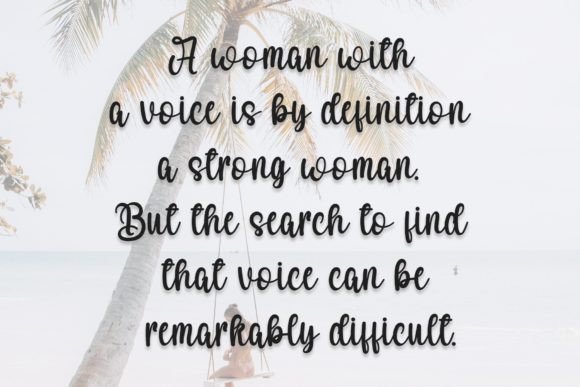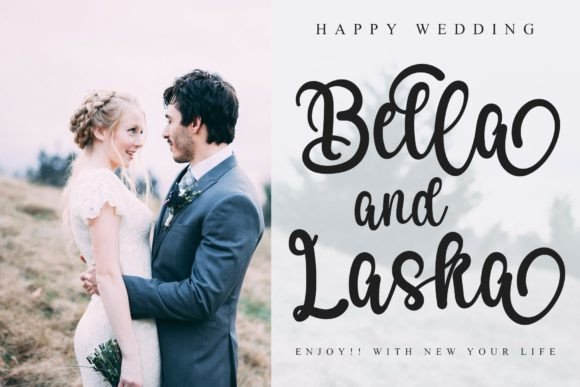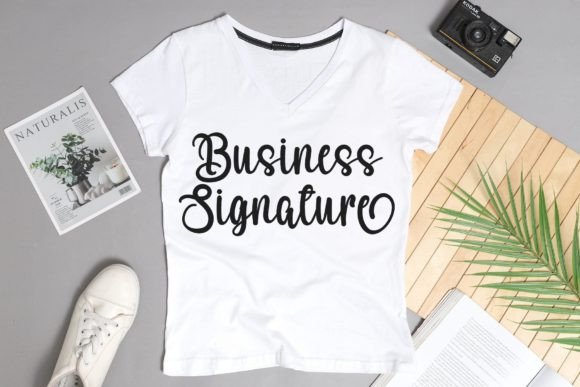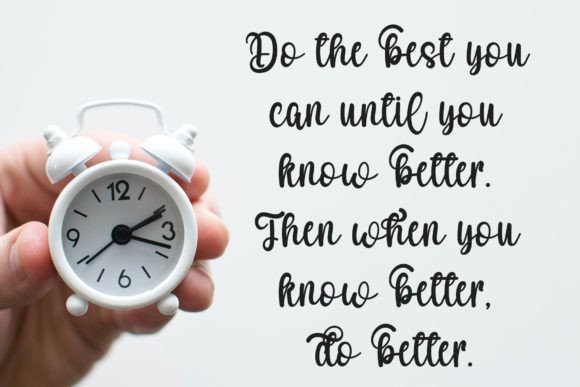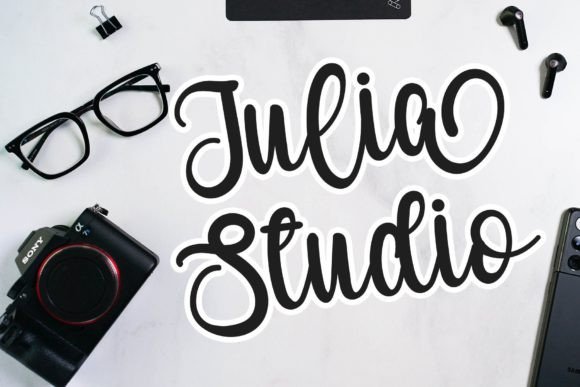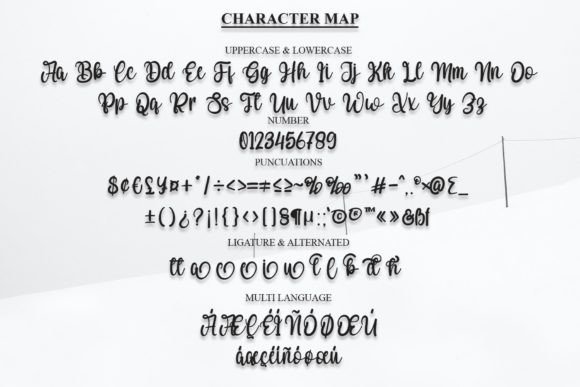
Hella Font: Elevate Your Designs with a Timeless Handwritten Style
Are you on the hunt for a font that adds a personal touch to your designs? Look no further than Hella Font, a lovely and timeless handwritten font that is perfect for creating eye-catching logos, branding, and quotes. With its unique and beautiful touch, Hella Font is sure to make your design come alive!
The Charm of Hella Font
Hella Font is a carefully crafted handwritten font that exudes warmth and elegance. Its timeless design makes it suitable for a wide range of projects, from modern branding to vintage-inspired crafts. Every letter in the Hella Font has a distinct character, with subtle variations in line width and curvature that give it a human touch.
Whether you’re a professional designer or a crafty DIY enthusiast, Hella Font is an excellent choice for your next project. Its versatility and charm make it ideal for:
- Logo design: Create a lasting impression with a custom logo that showcases your brand’s personality.
- Branding: Develop a consistent visual identity that sets your business apart from the competition.
- Quotes and typography: Add a touch of elegance to your inspirational quotes, posters, and social media graphics.
- Crafting: Use Hella Font to create beautiful handmade cards, scrapbook pages, and other paper crafts.
What Sets Hella Font Apart
So, what makes Hella Font stand out from other handwritten fonts? Here are a few unique features that set it apart:
- Unique letterforms: Each letter in the Hella Font has a distinct character, ensuring that your text will never look boring or repetitive.
- Beautiful touch: The subtle imperfections and variations in line width give Hella Font a warm, human feel that is perfect for creating a personal connection with your audience.
- Timeless design: Unlike trendy fonts that quickly go out of style, Hella Font has a classic look that will remain relevant for years to come.
Tips for Using Hella Font
To get the most out of Hella Font, here are a few tips to keep in mind:
- Experiment with sizes: Hella Font looks great in a variety of sizes, from large headings to smaller body text.
- Mix and match: Combine Hella Font with other fonts to create a unique and visually appealing typography.
- Pay attention to spacing: Make sure to leave enough space between letters and lines to create a clean and easy-to-read design.
In conclusion, Hella Font is a versatile and charming handwritten font that is perfect for designers and crafters looking to add a personal touch to their projects. With its unique letterforms, beautiful touch, and timeless design, Hella Font is sure to elevate your designs and make them stand out from the crowd. So why wait? Try Hella Font today and see the difference it can make in your work!